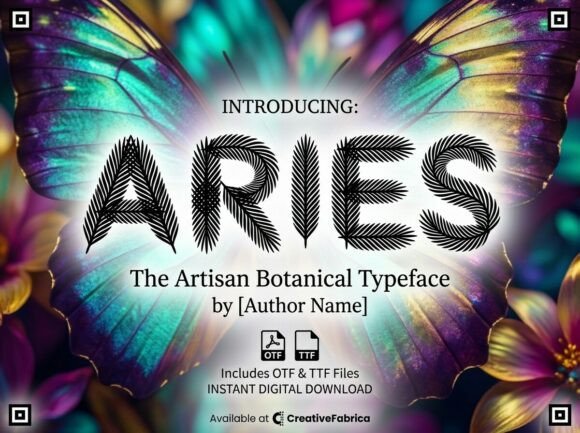
Introducing Aries Font: Transport Your Designs to a Tropical Paradise
Are you tired of using the same old fonts for your designs? Do you want to add a touch of tropical paradise to your branding, packaging, or social media headers? Look no further than Aries Font, a lush display typeface that captures the essence of a breezy and botanical soul. In this article, we’ll dive into the unique features of Aries Font and explore how it can elevate your designs to new heights.
The Inspiration Behind Aries Font
Aries Font is a bold and exotic typeface that draws inspiration from the natural world. Its unique letterforms are constructed entirely from rhythmic, hand-drawn “palm fronds” and feathery leaf textures, bridging the gap between organic nature illustration and modern vacation branding. The result is a font that exudes a sense of tropical paradise, perfect for designers and crafters looking to add a touch of island vibes to their work.
Key Features of Aries Font
So, what sets Aries Font apart from other typefaces? Here are some of its key features:
- Bold and Structural Weight: Aries Font boasts a heavy structural weight that gives it a commanding presence on any design.
- Exotic Personality: The font’s unique construction from palm fronds and leaf textures gives it an exotic personality that’s perfect for tropical-themed designs.
- Hand-Drawn Details: Each letterform is carefully hand-drawn, giving Aries Font a personal and organic feel.
- Versatility: Aries Font is suitable for a wide range of design applications, from independent beach resort identities to boutique summer festival logos, eco-friendly travel packaging, and high-impact social media headers.
Use Cases for Aries Font
Aries Font is a versatile typeface that can be used in a variety of design applications. Here are some use cases to get you started:
- Independent Beach Resort Identities: Create a stunning logo for your beach resort with Aries Font, evoking the feeling of a tropical paradise.
- Boutique Summer Festival Logos: Add a touch of island vibes to your summer festival logo with Aries Font, perfect for music festivals, food festivals, or cultural events.
- Eco-Friendly Travel Packaging: Use Aries Font to create eco-friendly travel packaging that stands out on store shelves and communicates your brand’s commitment to sustainability.
- High-Impact Social Media Headers: Elevate your social media presence with Aries Font, creating eye-catching headers that grab attention and drive engagement.
Tips for Using Aries Font
To get the most out of Aries Font, here are some tips to keep in mind:
- Pair with Neutral Backgrounds: Aries Font works best with neutral backgrounds that allow its bold and exotic personality to shine.
- Experiment with Color: Try pairing Aries Font with bright and bold colors to create a truly eye-catching design.
- Use for Headlines and Titles: Aries Font is perfect for headlines and titles, where its bold and structural weight can make a real impact.
In conclusion, Aries Font is a game-changing typeface that can transport your designs to a tropical paradise. With its unique construction from palm fronds and leaf textures, bold and structural weight, and exotic personality, Aries Font is the premier choice for designers and crafters looking to add a touch of island vibes to their work. Whether you’re creating a logo for a beach resort, a summer festival, or eco-friendly travel packaging, Aries Font is the perfect choice.